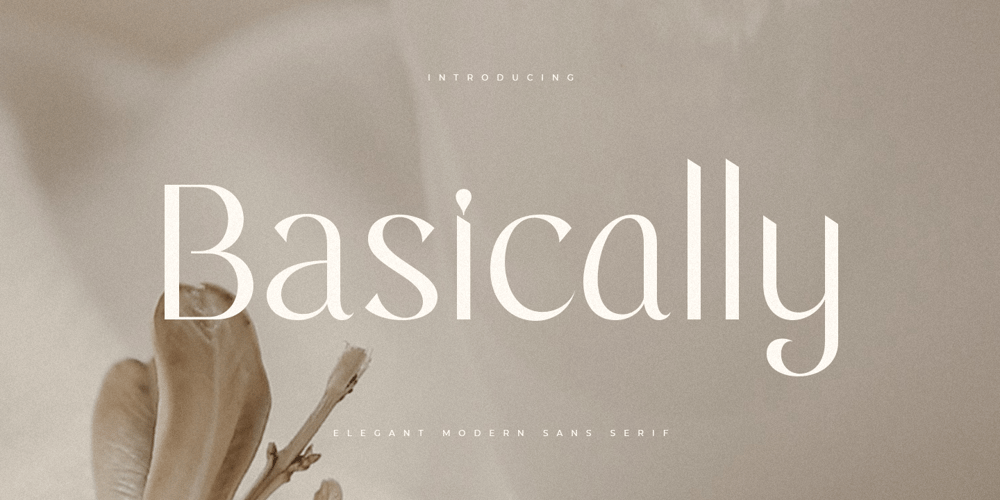
Basically Font Family was designed by Zamroni Hamzah and published by Sensatype Studio. Basically contains 1 styles and family package options. An Elegant Modern Sans Serif font that we created special for elegant branding needs, with extra alternates in unique shape will be ready to add value of your brand. It so nice to leverage designer or product owner that need solutions to make their design look more classy and modern. And specially for Basically font, We prepared any alternate characters to help you create unlimited variations for your creative needs.Basically Elegant Modern Sans Serif ready with: Any options to get creative variations Preview as a inspirations that you can do with Basically font Ready with Lowercase and Uppercase characters Wish you enjoy our font. ๐